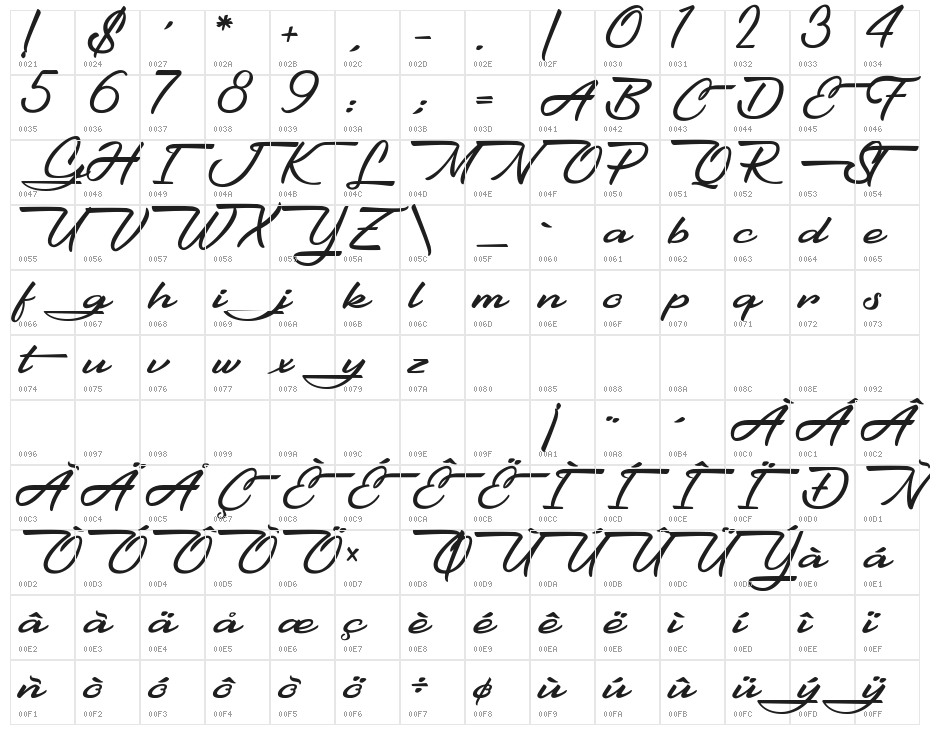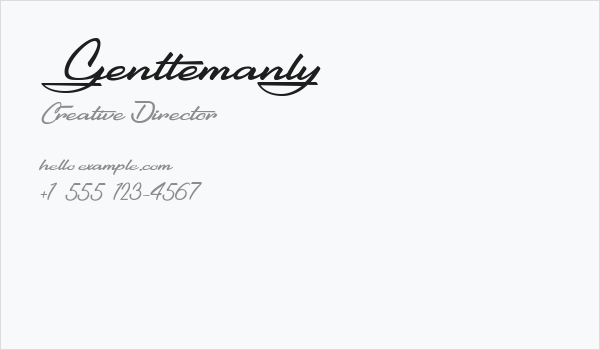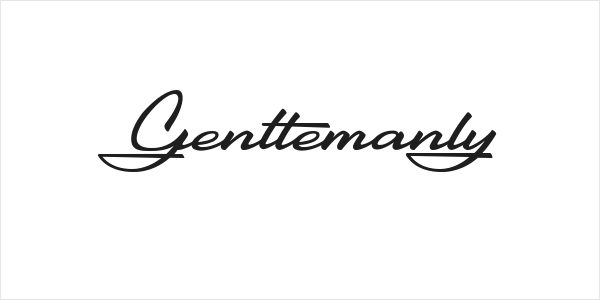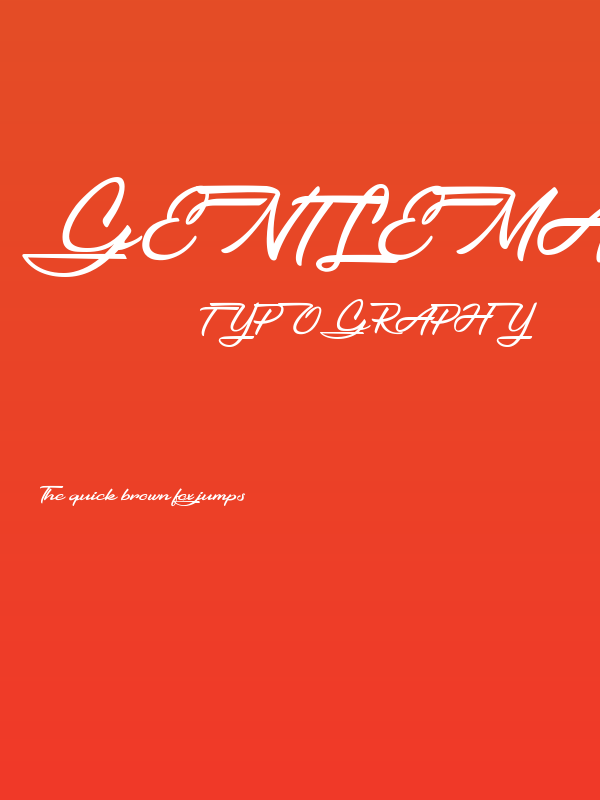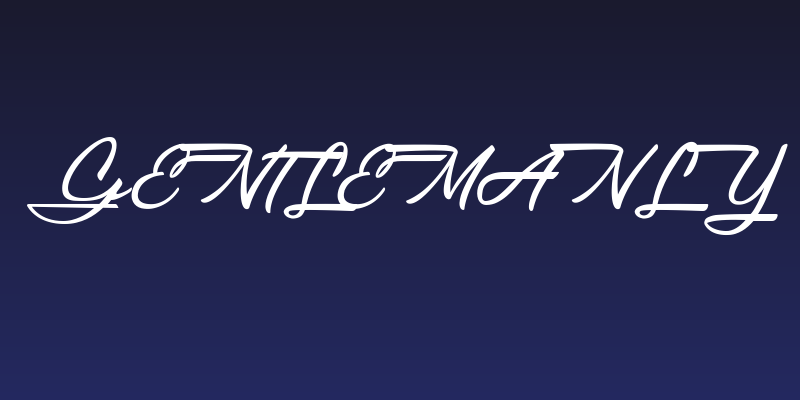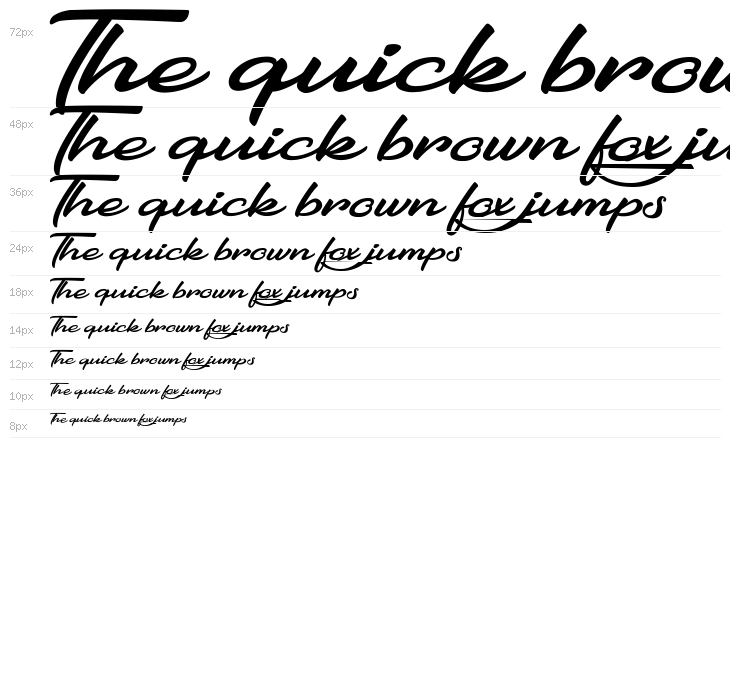
Gentlemanly Font
Gentlemanly Description
This font exudes elegance and sophistication with its flowing, cursive style. The letters are intricately designed with smooth curves and a slight slant, giving it a handwritten appearance. The uppercase letters are bold and prominent, while the lowercase letters maintain a consistent flow, enhancing readability. The numerals are stylishly crafted, matching the overall aesthetic of the font. Special characters are thoughtfully integrated, adding versatility to its use. This font is perfect for projects that require a touch of class and refinement.
| Proposed Projects | Ideal for wedding invitations, luxury branding, elegant logos, and high-end product packaging. |